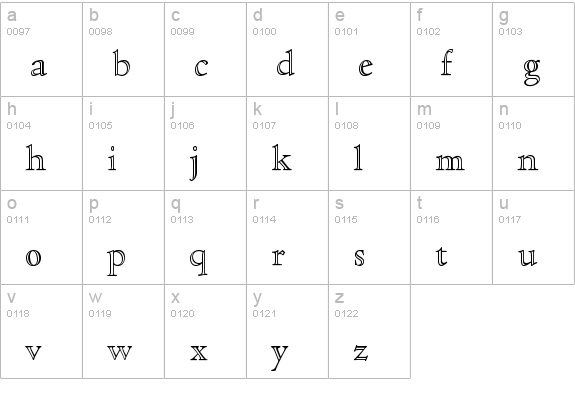
Cloister Std Open Face Font Details
Cloister Std Open Face is a classic and elegant font that exudes a sense of sophistication and timelessness. Its delicate open face design gives it a unique charm, making it perfect for adding a touch of vintage flair to any project. The clean lines and graceful curves of this font make it versatile and suitable for a wide range of applications, from invitations and greeting cards to logos and branding. What sets Cloister Std Open Face apart is not only its timeless appeal but also the fact that it is freely available to download at FontsMarket.com. This means that you can easily access and use this beautiful font in your designs without any cost involved. Whether you're a professional designer looking for a new typeface to add to your collection or a hobbyist looking to elevate your projects, Cloister Std Open Face is a fantastic choice that won't break the bank. Add a touch of elegance and sophistication to your designs with Cloister Std Open Face, a beautiful font that is both classic and contemporary, and best of all, free to download at FontsMarket.com.